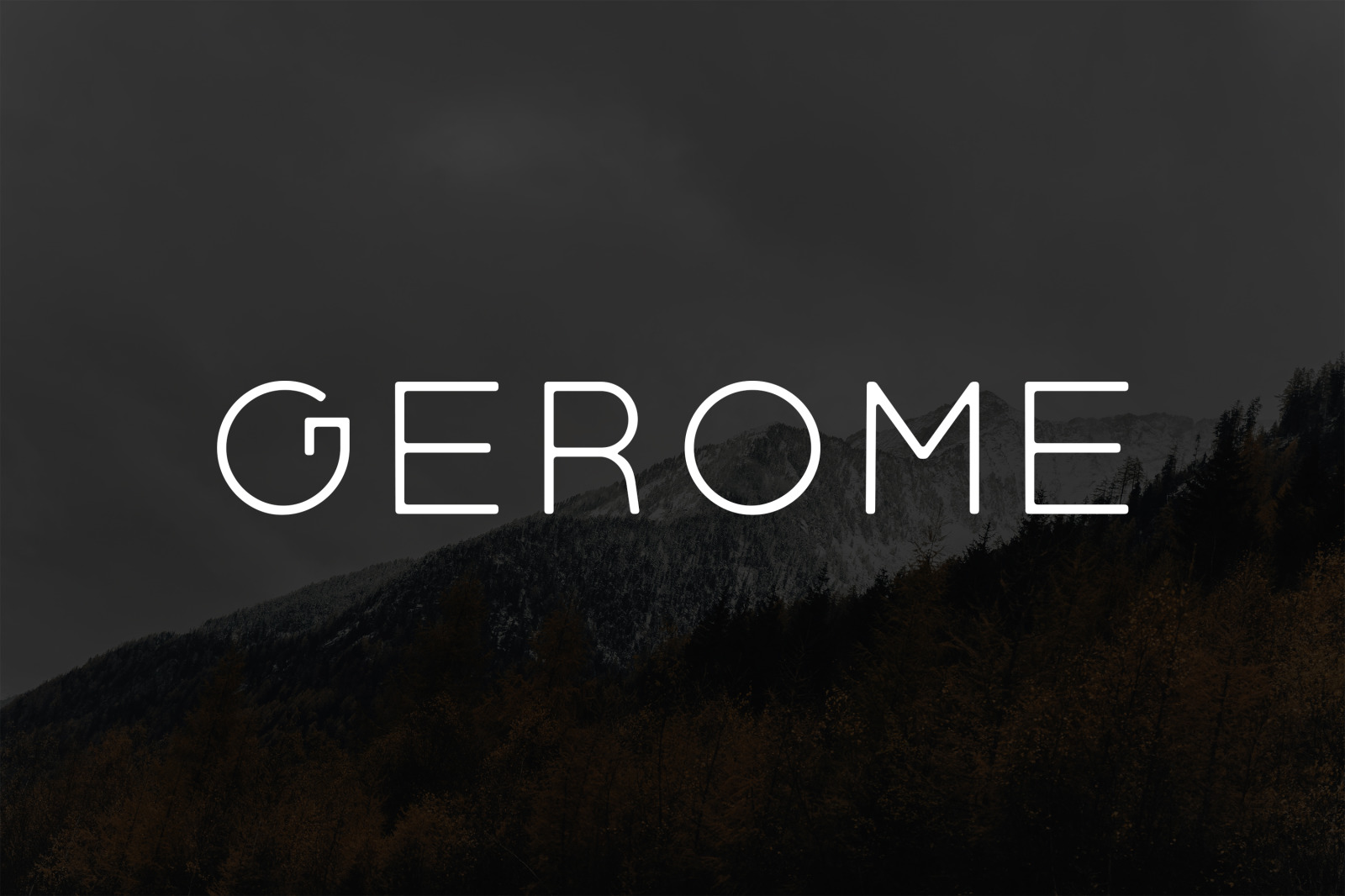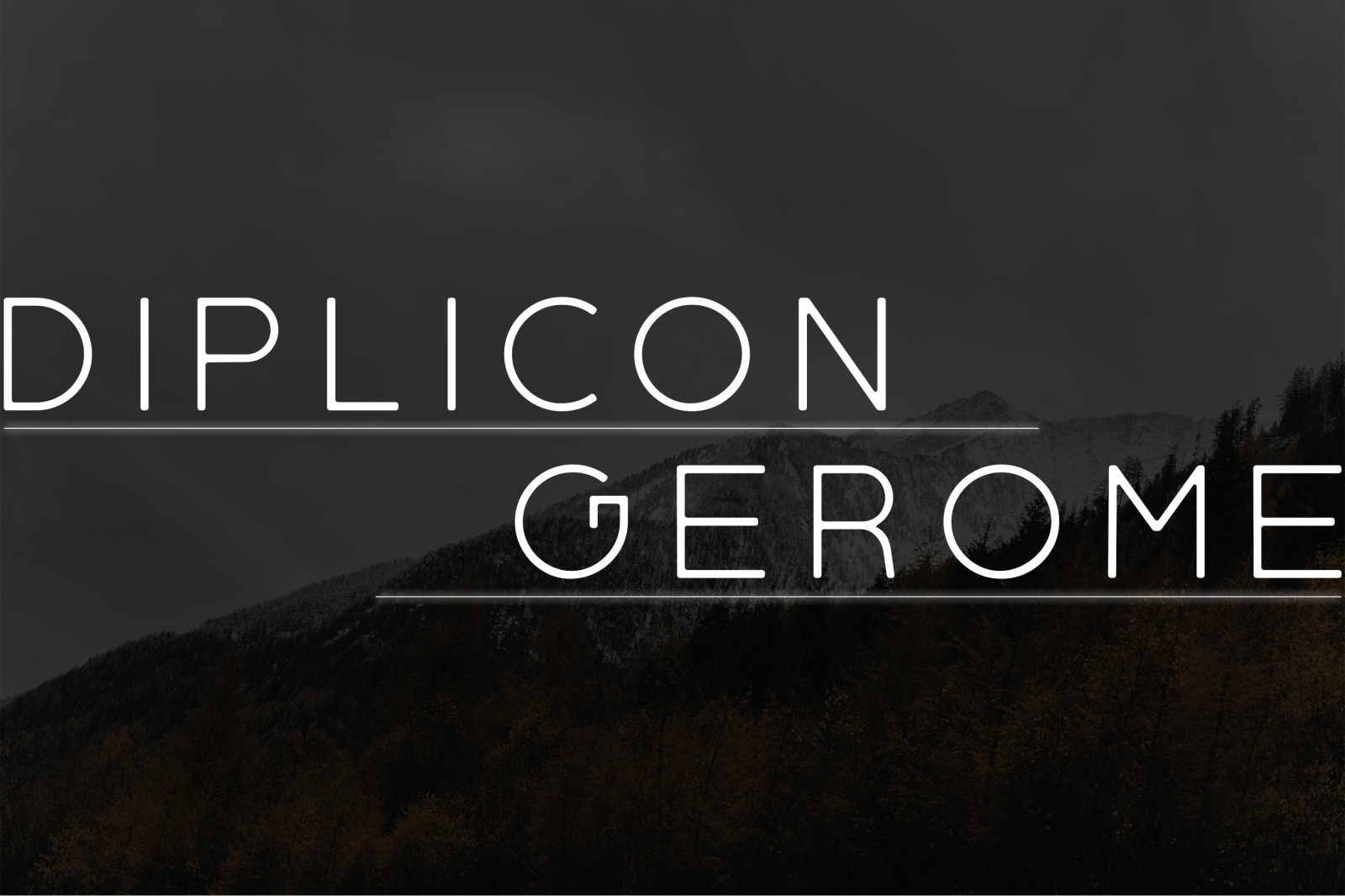
GEROME FONT
GEROME FONT is an elegant and classy Display Font . It works great for logos, magazines, social media. Already matched up and ready to be used together for your next design! You can download this font, Use it in your Christmas cards and greetings for the new year.
Gerome Font has thin and bold letters, which will be perfect for creating logos and branding projects. This font is intended for use as a display font. It has a versatile, bold yet playful design, allowing you to be creative with your projects.
When describing it, words like elegant, minimal, classy, and modern come to mind. Itβs great for fashion, clothing styles, signatures, album covers, magazines, social media, and advertisements, among other things. This creative font has 200 above glyphs and extensive Latin script support and upper case and lowercase sans serif characters.